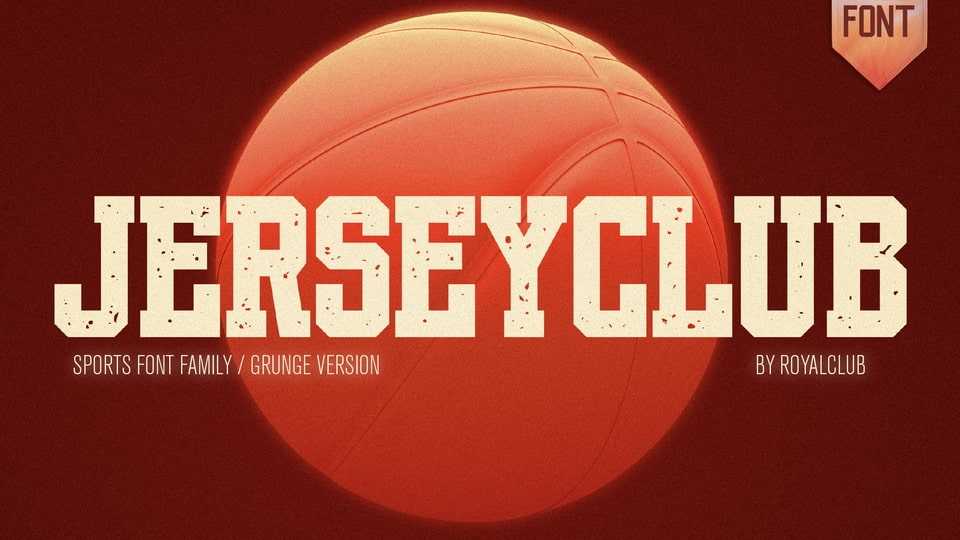
Download Jerseyclub font, a new complete typeface designed for sports usage. Created to catch up with the lack of sporty fonts, Jerseyclub font matches most sport topics and projects.
Designer: ROYALCLUB